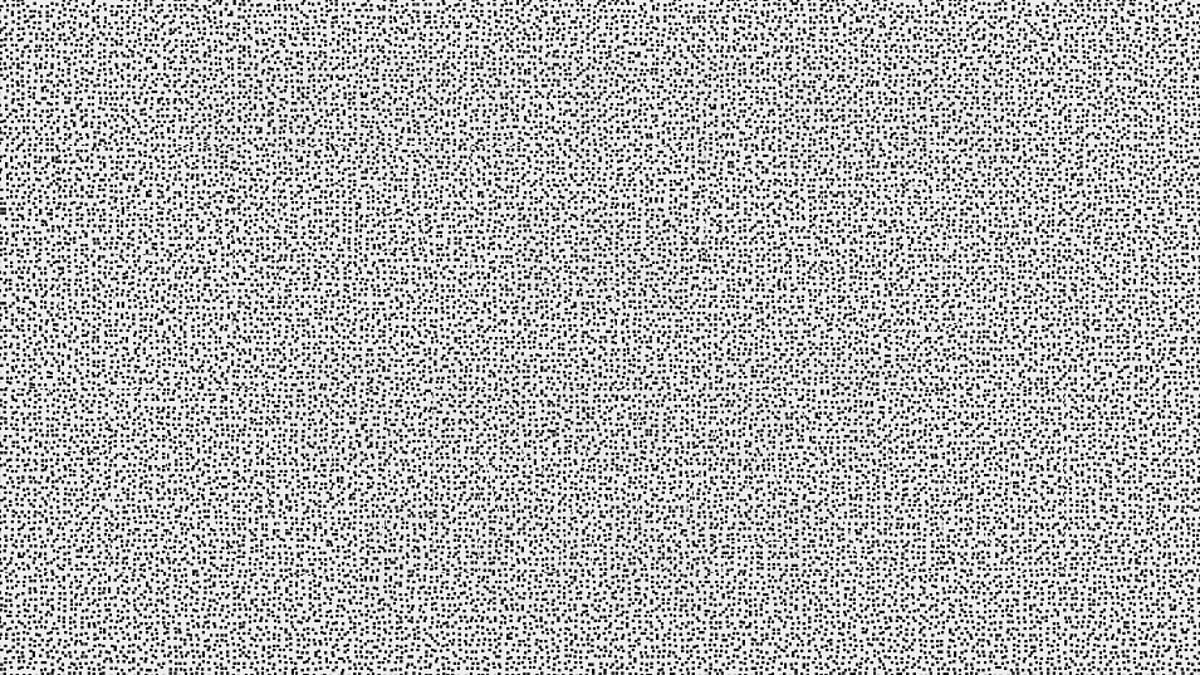
With AI now ingrained in everything from fitness trackers to dating apps, knowing who – or what – can access your private messages is becoming increasingly difficult. But help is at hand, as scientists have developed a new anti–AI font. Dubbed the 'Ghost Font', the font writes messages using motion.'Using a combination of motion, video, noise, and decoys, it's a unique way to share a message with other real humans,' explained its developer, Eric Lu.'I suppose technically, it's not a font in the traditional sense of a TTF font file. 'But, Ghost Font is an experiment of a way to graphically communicate in writing in a format that AI cannot easily understand. 'While it's not as legible as regular text, the letters are still immediately readable to a human eye, but even leading AI models can't decipher it easily.'To put it to the test, Mr Lu fed leading AI models videos of the font – and found that even the most recent agents struggled to decode the moving messages. Scientists have developed a new anti–AI font. Dubbed the 'Ghost Font', the font writes messages using motionMr Lu says his inspiration for the font was ZXX – a typeface created back in 2013 by designer Sang Mun. ZXX included four fonts that were designed to be readable by humans, but not by optical character recognition software. 'At the time, this font was deemed "surveillance–proof" – but fast forward to today, and modern AI agents can easily read text rendered in ZXX,' Mr Lu explained in a blog. To get around modern AI bots however, Mr Lu had to use motion. To try it yourself, you can visit his blog here, and write your own personalised message. 'Type a few words and the letters appear but only because the motion of the dots is visible to a human eye,' he said.'When the video is paused, the static dots blend together, and it becomes impossible to tell just from looking at a single frame what message is embedded in the image. 'That means that screenshotting the page won't reveal the message.' Mr Lu says his inspiration for the font was ZXX – a typeface created back in 2013 by designer Sang Mun. ZXX included four fonts that were designed to be readable by humans, but not by optical character recognition softwareTo add an extra layer of protection, the Ghost Font even features a sneaky decoy message, which throws most AI bots off the scent. Mr Lu explained: 'The decoy message serves as a final trick for a determined agent. 'When looking for a hidden message, it might first find the decoy message and think that that is the real embedded message in the video. 'That's how Ghost Font is able to hide a message even from the strongest thinking models like Fable and GPT Sol 5.6 Ultra.'Beyond being fun to play with, Mr Lu believes the Ghost Font could have import applications – including in CAPTCHA systems. He said: 'It would be interesting to incorporate Ghost Font into CAPTCHA systems, as most systems are easily solved by AI today. 'Using motion in a video would be a way to make it much more difficult for an automated bot to decipher but still relatively easy for a human to read.'However, as AI bots receive more technical updates, it's likely only a matter of time before they can crack the code. Mr Lu concluded: 'AI is certainly getting really good. 'While Ghost Font is hard for AI to read, it's also pretty hard for humans to read! The gap continues to close. 'It will be interesting to see what the future holds when it comes to AI perception and multimodal models.'Several social media users tested the font out this week – with mixed reviews. Taking to X, one asked: 'Is this the ultimate CAPTCHA?'Another added: 'I don't see the point of such efforts, even in the short run before AIs catch up.'And one joked: 'The only downside is that it drives all who look upon it INSANE.'
Scientists develop a 'ghost font' that only humans can read - and it leaves even the most advanced AI bots baffled